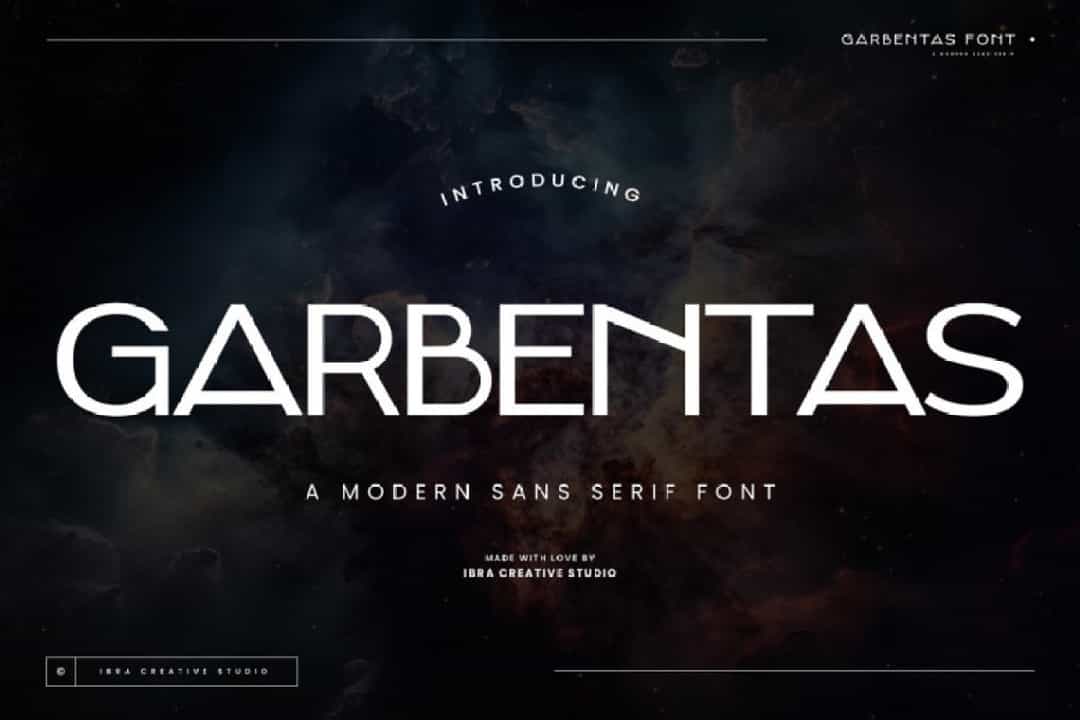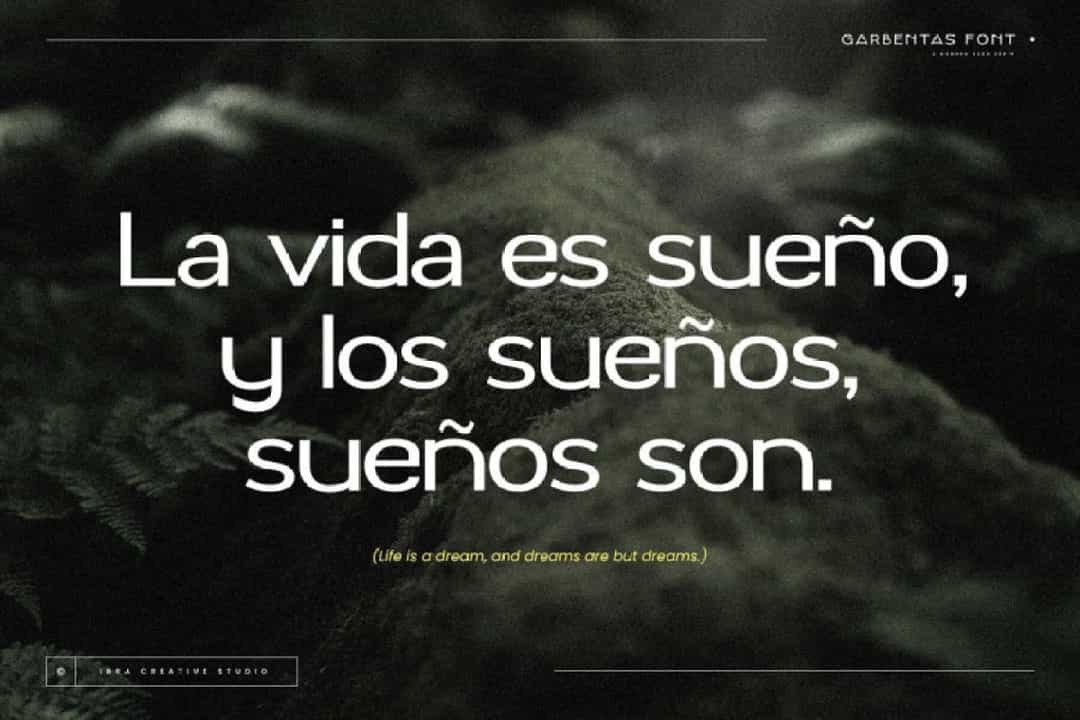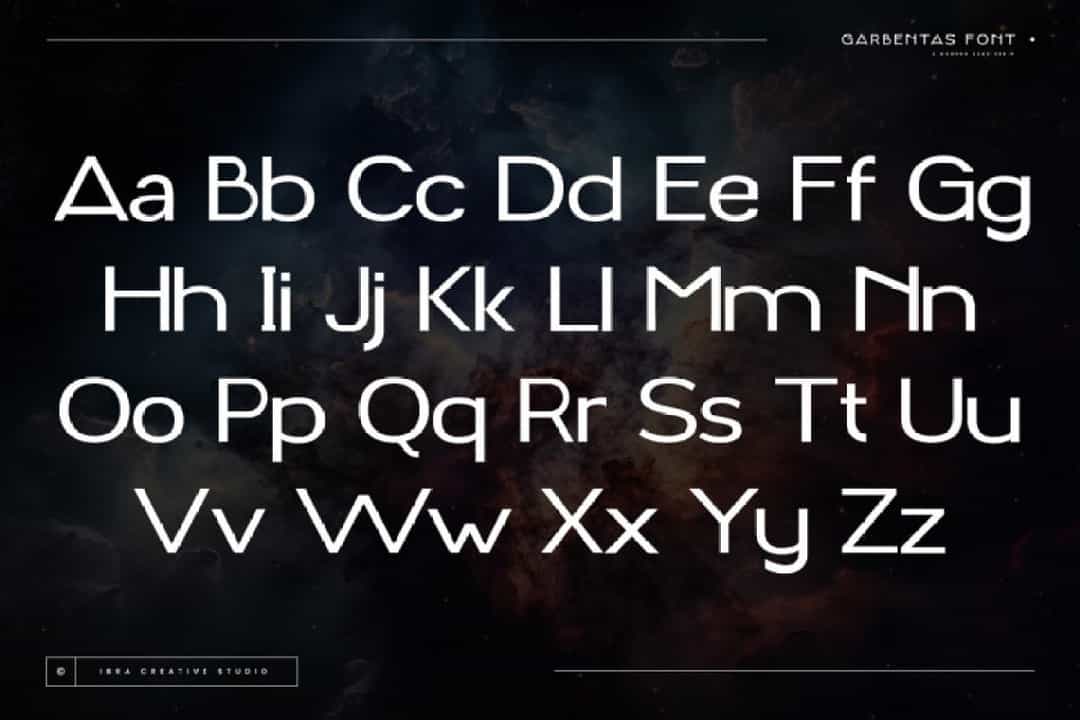
Garbentas is an eye-catching modern sans serif typeface that seamlessly combines classic aesthetics and contemporary functionality. With clean lines and perfectly proportioned proportions that evoke elegance, Garbentas makes an ideal choice for various design purposes.